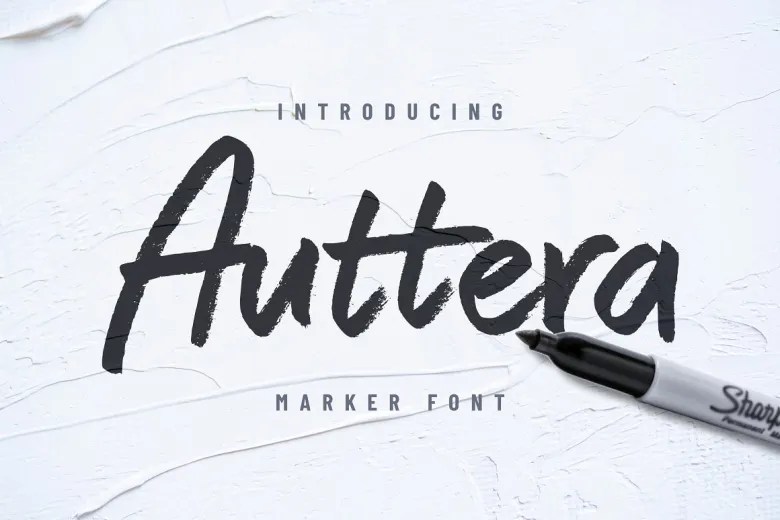
Auttera Font
Auttera is an authentic typeface crafted from hand-drawn sketches with markers, giving it a unique, organic style. This font’s natural charm and personal touch set it apart, making it ideal for designs that seek a distinctive and individualistic look.
Auttera’s elegance shines through in its design, offering both uppercase and lowercase characters, punctuation, and multilingual support. It adds visual interest and sophistication to any project, whether for branding, invitations, or creative layouts.